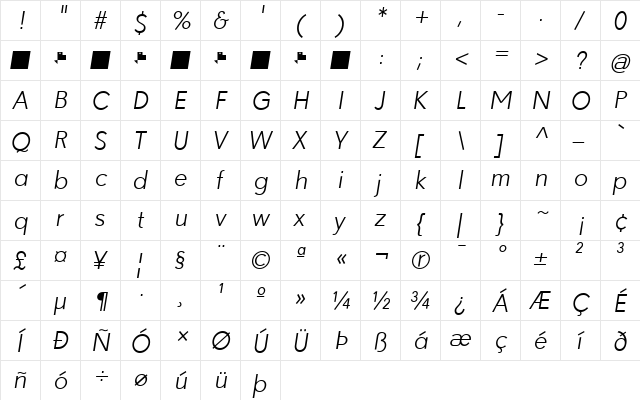
Paloseco Light Italic
| Foundry | deFharo |
| Designer | Fernando Haro |
Design Context for Paloseco Typeface
Paloseco is a composed and adaptable typeface that performs quietly and consistently across a wide range of design contexts. The slanted form adds forward momentum and visual energy. The delicate stroke weight brings airiness and refinement to layouts.